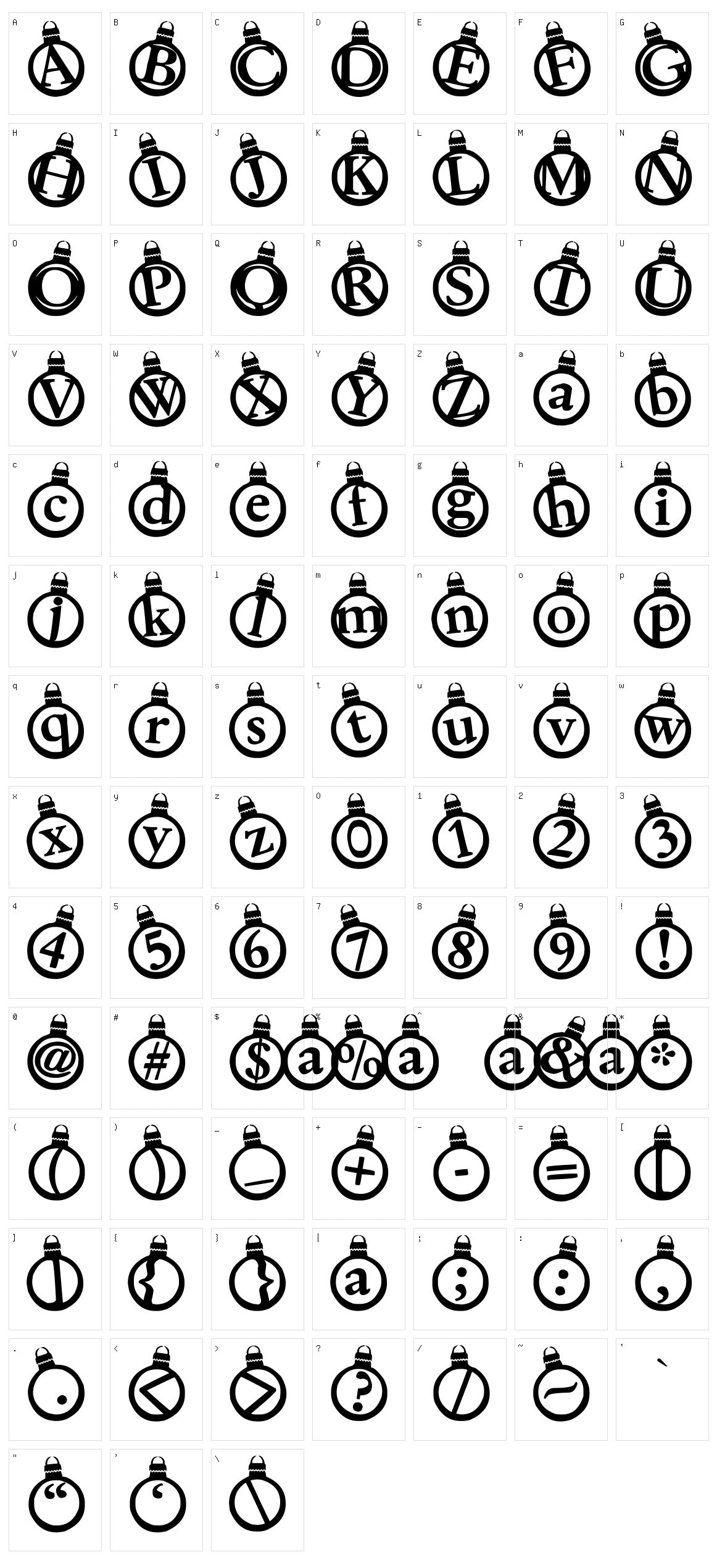
The free font KerstKaarten is carefully designed by Peter Digstra, showcasing a thoughtful balance of creativity and usability and falls under the Christmas font style. When you download the ZIP file, it contains only 31.62 KB of font files, making it lightweight and quick to download. Please review the license details below to understand permitted usage and distribution rights. If license information is not available, we recommend using this font for personal projects only or contacting the author directly for commercial usage permissions.